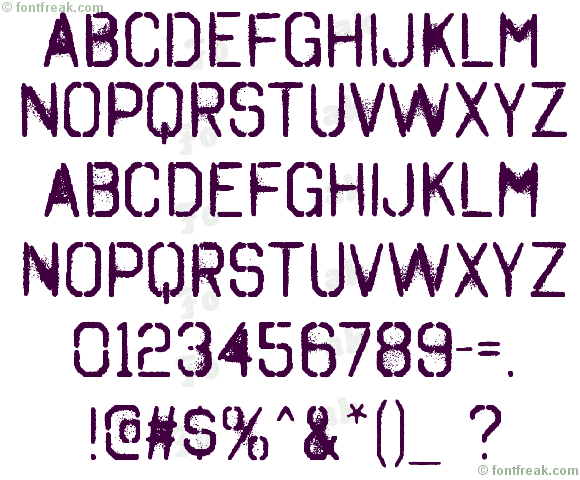
Octin Spraypaint Free
About Octin Spraypaint
The Octin Spraypaint font by Typodermic Fonts is a striking display typeface that encapsulates the gritty charm of urban street art. This freeware font boasts a bold, hand-drawn aesthetic, reminiscent of spray-painted lettering on city walls. Its visual characteristics include uneven stroke weights and a slightly rough texture, which impart a sense of spontaneity and creativity. The spacing is intentionally varied, enhancing the organic feel of the font, making it perfect for designs that aim to capture attention with an informal yet artistic flair.
Octin Spraypaint is ideally suited for a range of creative applications. Its vibrant style makes it an excellent choice for promotional posters, particularly for music festivals or art events where an edgy vibe is essential. Additionally, it can be effectively used in branding for streetwear clothing lines or casual eateries that wish to connect with a youthful audience. Graphic designers will find this font particularly useful for creating eye-catching graphics for social media campaigns, as well as for designing unique logos that stand out in a crowded marketplace. Small business owners looking to make a bold statement in their marketing materials will also appreciate its distinctive character.
What sets Octin Spraypaint apart is its ability to blend artistry with functionality. It captures the essence of street culture while remaining versatile enough for various creative applications, making it a standout choice for anyone looking to make a statement in their designs.